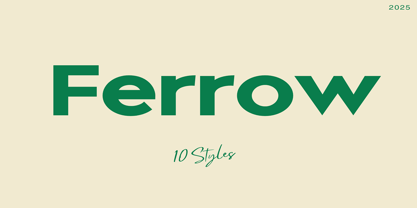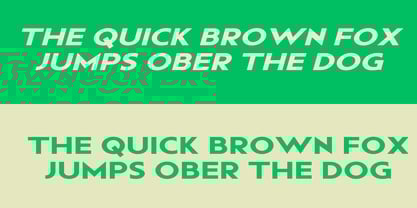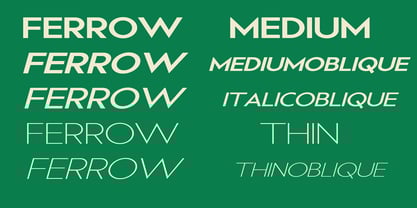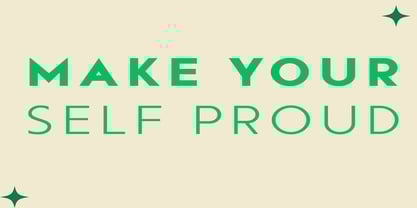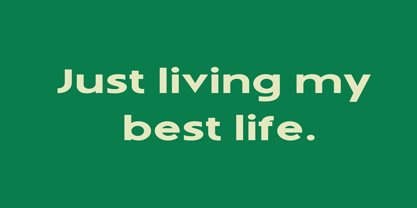
Ferrow
by Dream Font
The Ferrow Font Family was designed by Joel Kaden and published by Dream Font. Ferrow contains 10 styles and family package options. More about this family
Ferrow is a stunning typeface that belongs to the geometric sans-serif category, boasting a versatile range of 10 distinct styles. Each style within this typeface family is meticulously crafted to bring a modern and minimalist aesthetic to your design projects. The geometric design of Ferrow letterforms is characterized by its clean lines, sharp angles, and even proportions, making it an ideal choice for those seeking a contemporary and sophisticated look in their typography.
Designers: Joel Kaden
Foundry: Dream Font